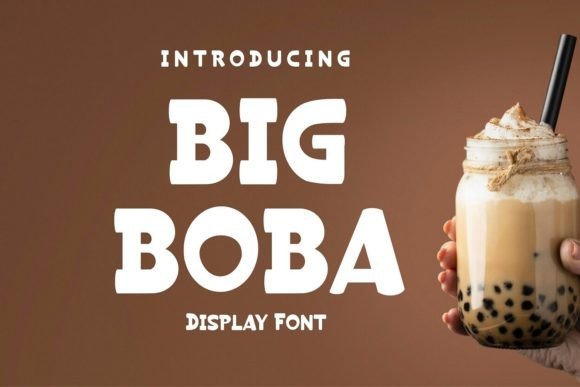
Introducing Big Boba Font: A Refreshing Twist for Designers
Do you remember the excitement of designing a logo for your childhood lemonade stand or creating a menu for your family’s summer barbecue? The thrill of bringing your imagination to life with the perfect font is something many designers can relate to. That’s exactly what inspired the creation of Big Boba Font – a playful display font that’s perfect for adding a touch of whimsy to your designs.
Big Boba Font is designed to be fun and fresh, making it an ideal choice for children’s products, menus, drink packaging, and more. Its versatility and charm will make it a valuable addition to any designer’s toolkit. With Big Boba Font, you can bring a smile to your audience’s faces and create memorable designs that stand out from the crowd.
Big Boba Font Key Features
- Font Family: Big Boba Font is a custom-designed font family, created specifically for use in the boba tea industry.
- Font Size: The font comes in multiple font sizes, including 12pt, 14pt, and 18pt, to accommodate various text requirements.
- Resolution: Designed to be scalable and legible at various resolutions, including 72 dpi and 300 dpi, for use in digital and print media.
- Unique Characteristics: The font features a distinctive, hand-drawn style with bold lines and rounded edges, giving it a fun and playful feel.
- Language Support: The font supports multiple languages, including English, Chinese, and Korean, making it a versatile choice for multilingual businesses.
Big Boba Font Review
Big Boba Font is an interesting addition to the world of digital fonts. On the positive side, I think the font’s unique and quirky design ✨ adds a fun touch to any project. The bold lines and playful letterforms make it perfect for headings and titles, and the font’s versatility shines in a variety of contexts, from branding to social media graphics.
However, there are some limitations to consider ⚠️. The font’s readability can be affected by the boldness of the letters, particularly at smaller sizes. Additionally, the font’s lack of ligatures and kerning can lead to some awkward spacing issues. This might be a problem for longer texts or sentences.
Here are some specific things to keep in mind when using Big Boba Font:
- Use it sparingly: Big Boba Font is best used in short bursts, such as headings or titles.
- Adjust the size: Be mindful of the font size to ensure readability.
- Pair it carefully: Choose a font that complements Big Boba Font’s quirky design.
Overall, Big Boba Font is a fun and unique addition to your design arsenal. While it may have some limitations, its playful charm can add a lot of personality to your projects. With careful use and consideration, Big Boba Font can be a great choice for designers looking to add some whimsy to their work.
Big Boba Font Practical Application Guide
Tips for Getting the Most Out of Big Boba Font
Use Big Boba Font to add a playful and whimsical touch to your designs. Experiment with different font sizes and colors to create visual interest. Pair Big Boba Font with other bold and playful fonts to create a unique and eye-catching design.
Use Big Boba Font for:
- Playful social media graphics
The Big Boba Font family includes a range of weights and styles, from Light to ExtraBold, as well as italic and oblique variations. The font also supports a wide range of font sizes, making it suitable for use in body text, headings, and titles.